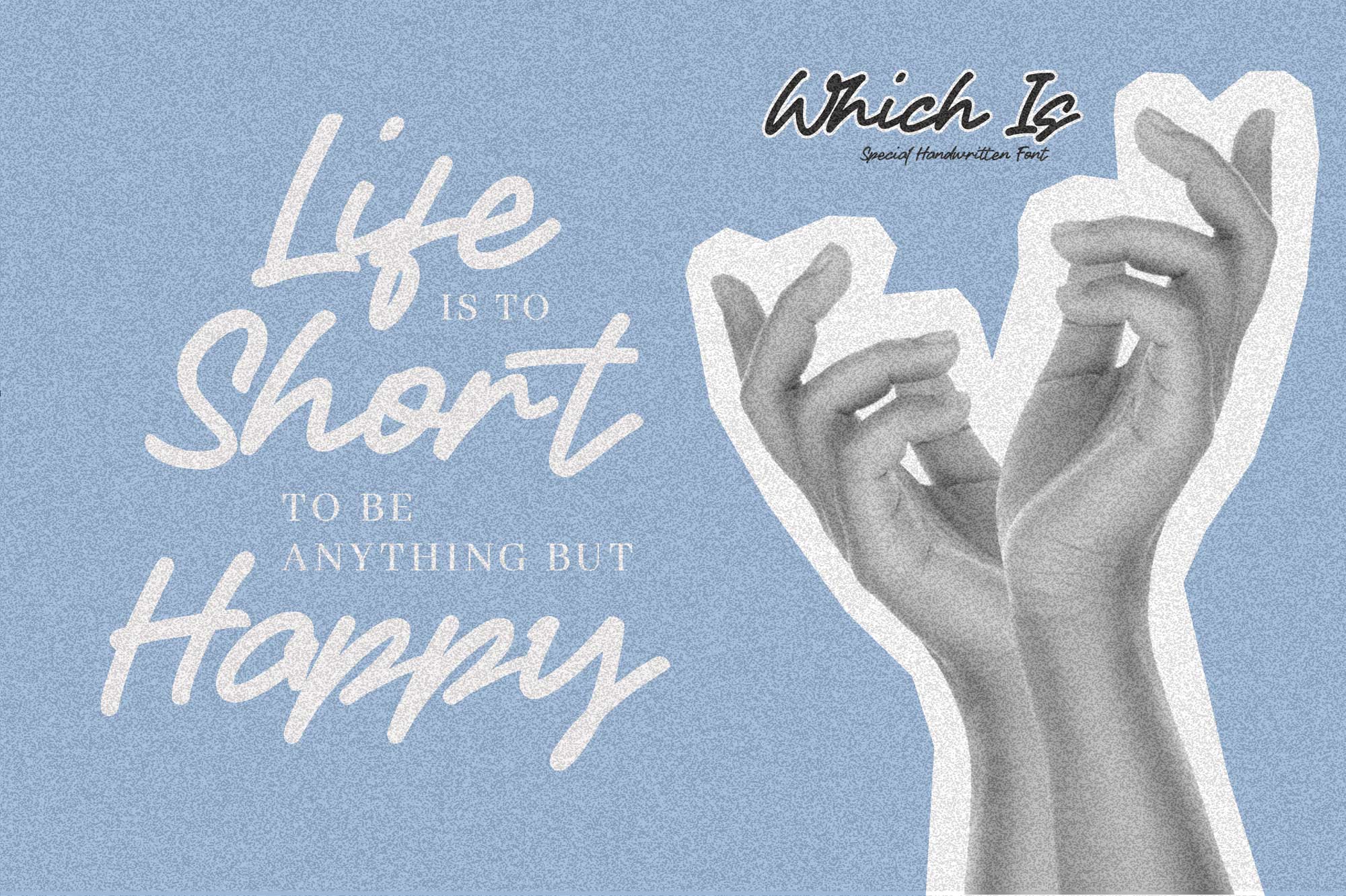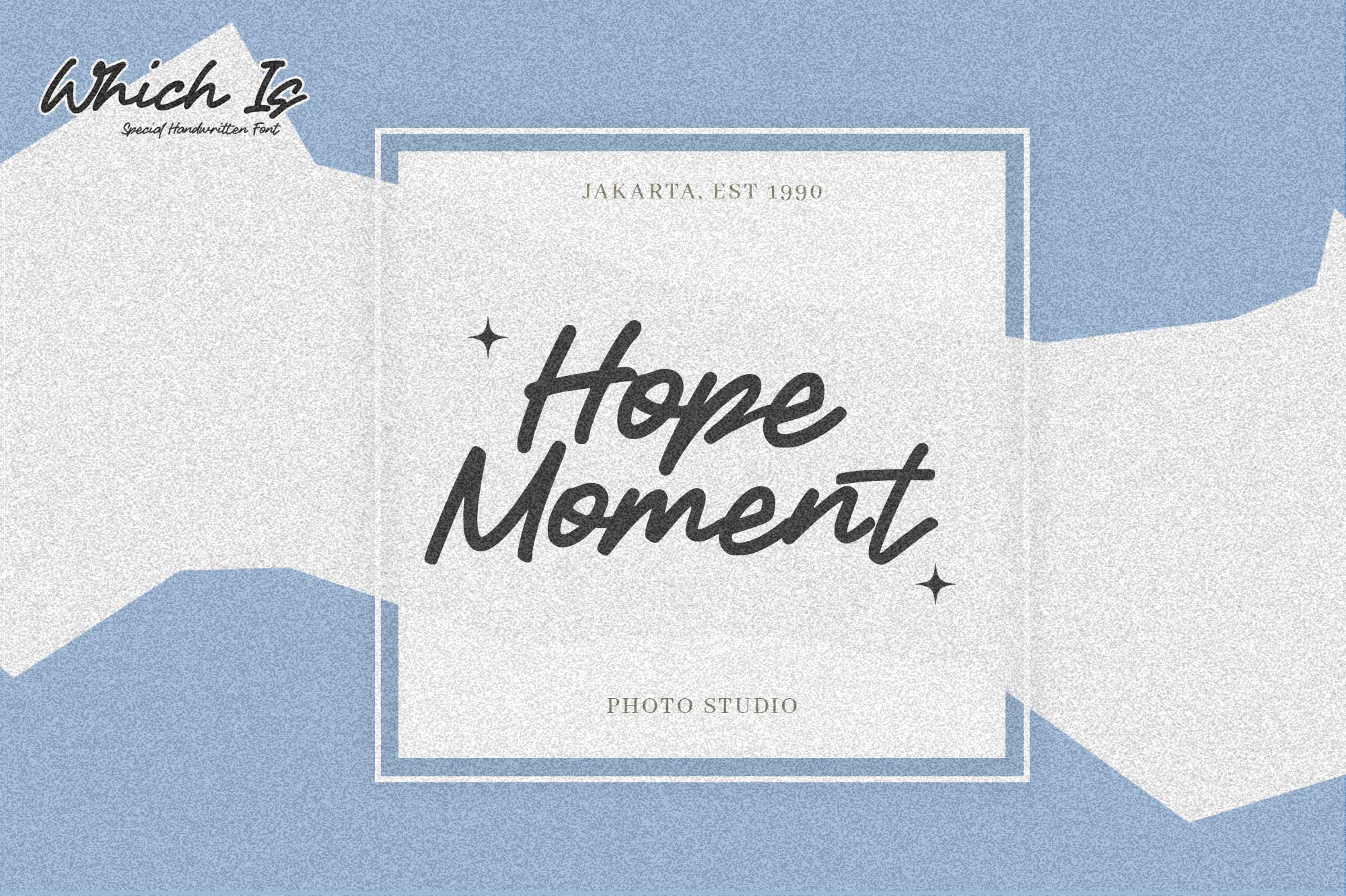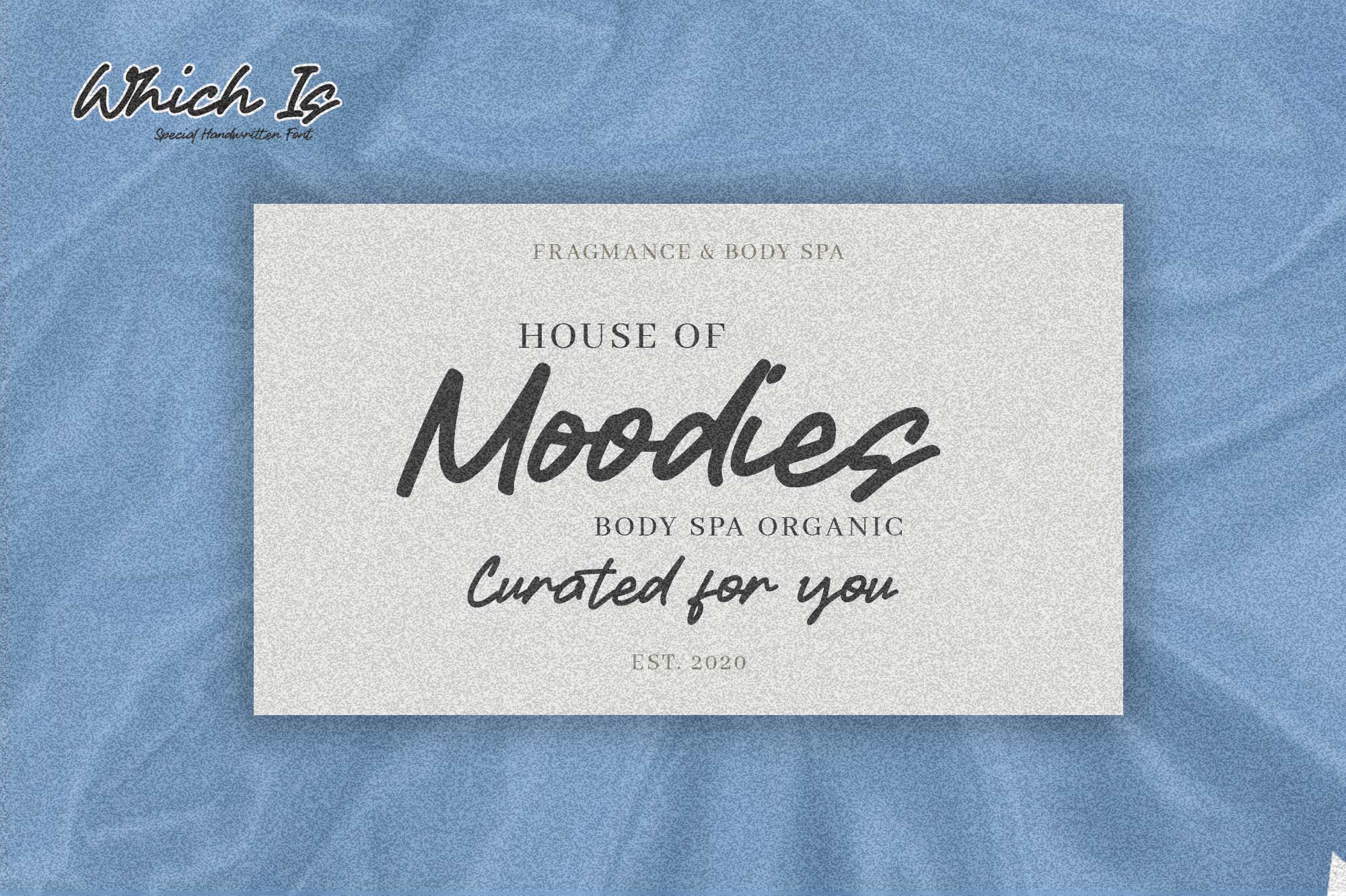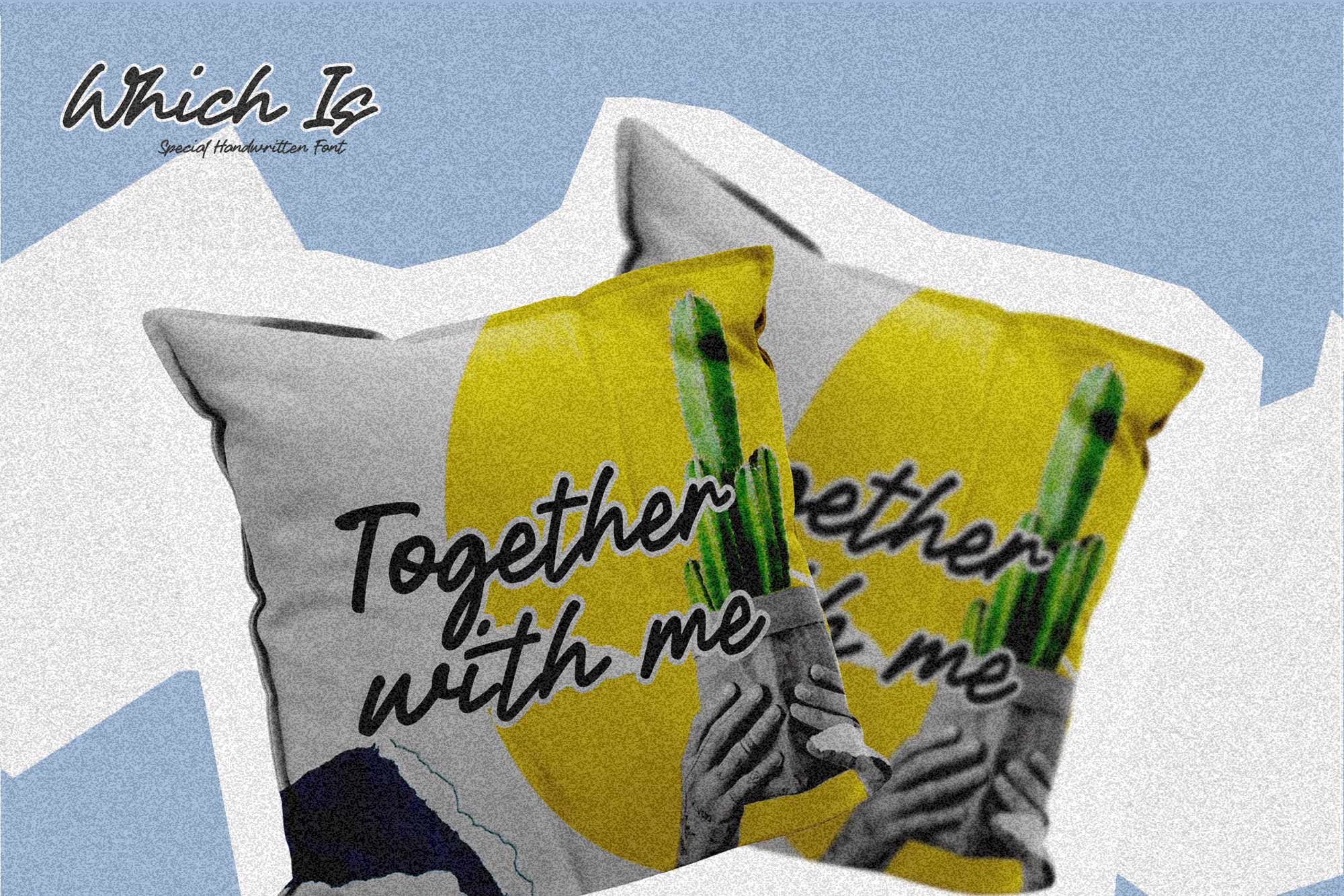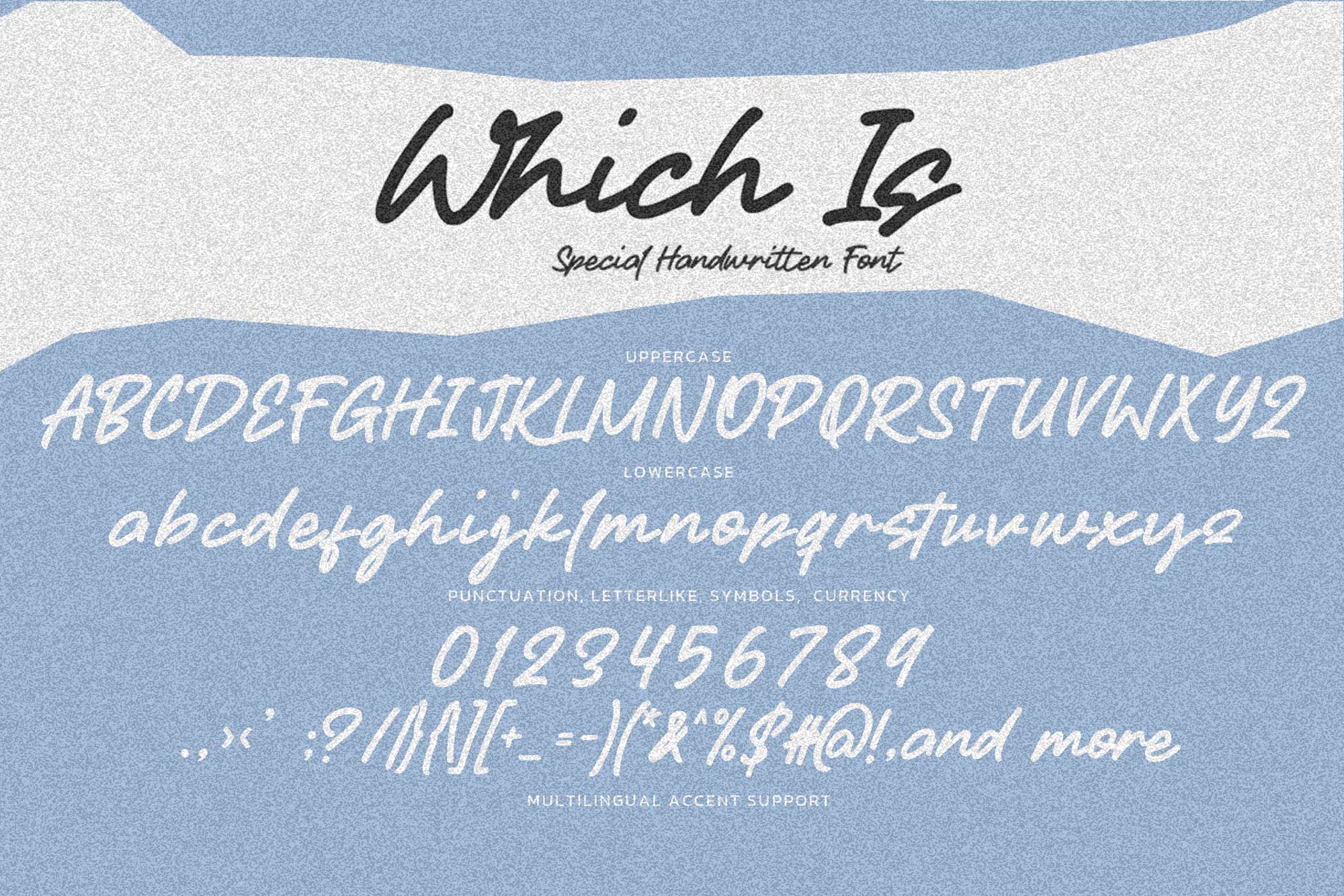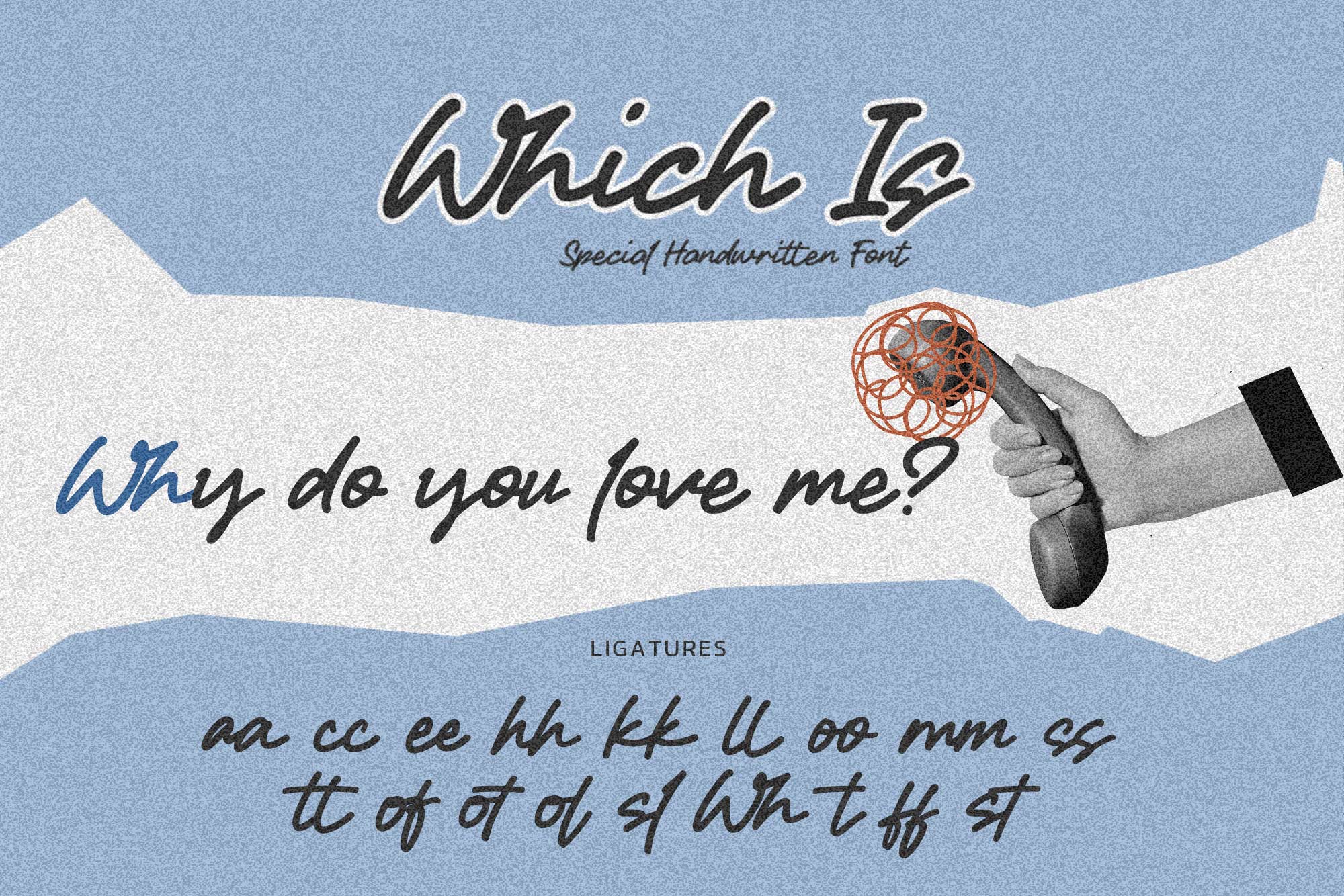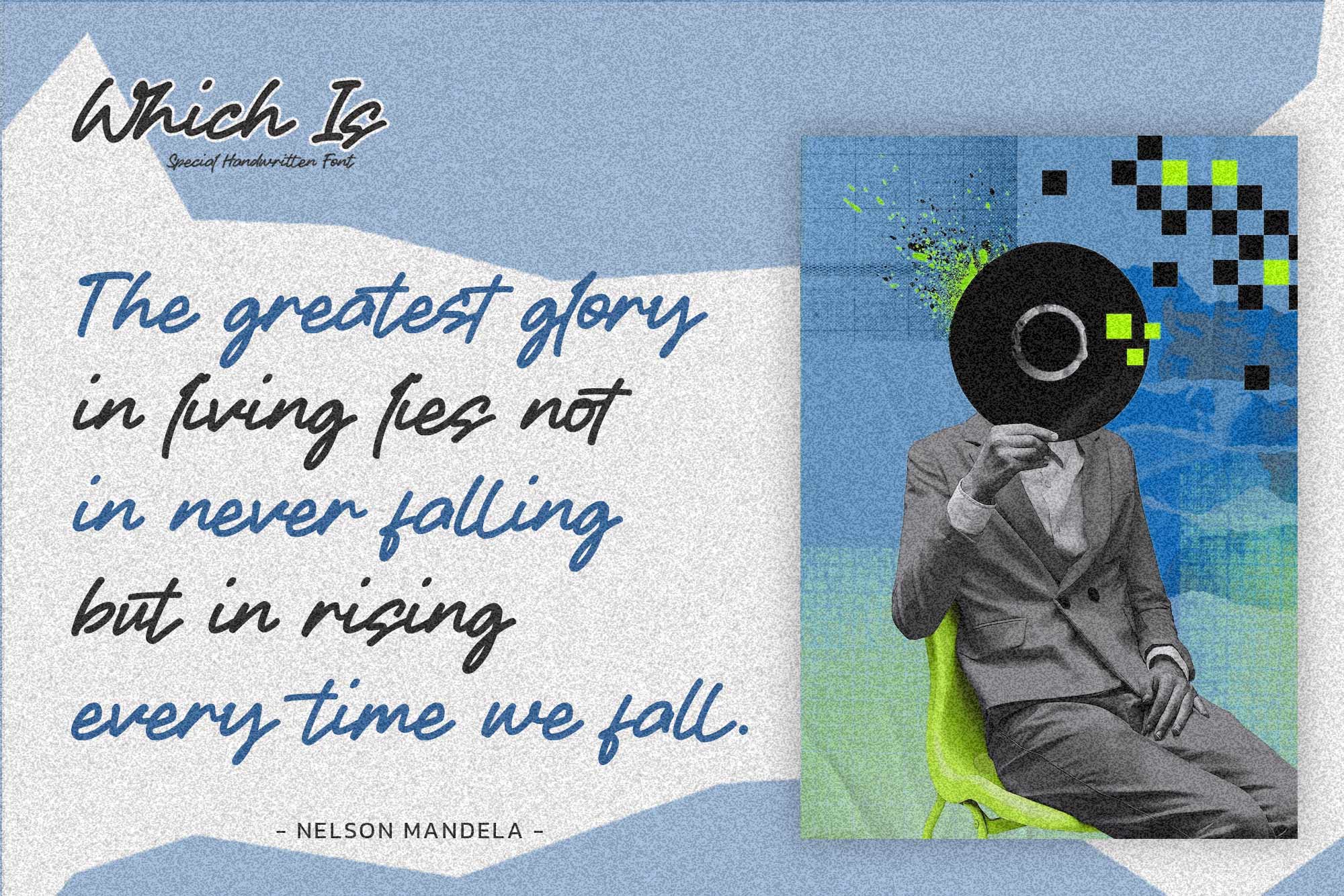
Which Is – Special Handwritten Font, authentic style and dramatic movement that is written casually and quickly.
The best for labels, poster, project designs look ,handwritten and cool . It’s perfect for labels, quotes, posters, DIY projects, branding, packaging, greeting cards, websites, photography overlays, signs, scrapbooking, tags and so much more! That is why Which Is has a textured, and authentic characteristic more natural look. You can activate Ligatures OpenType panel.